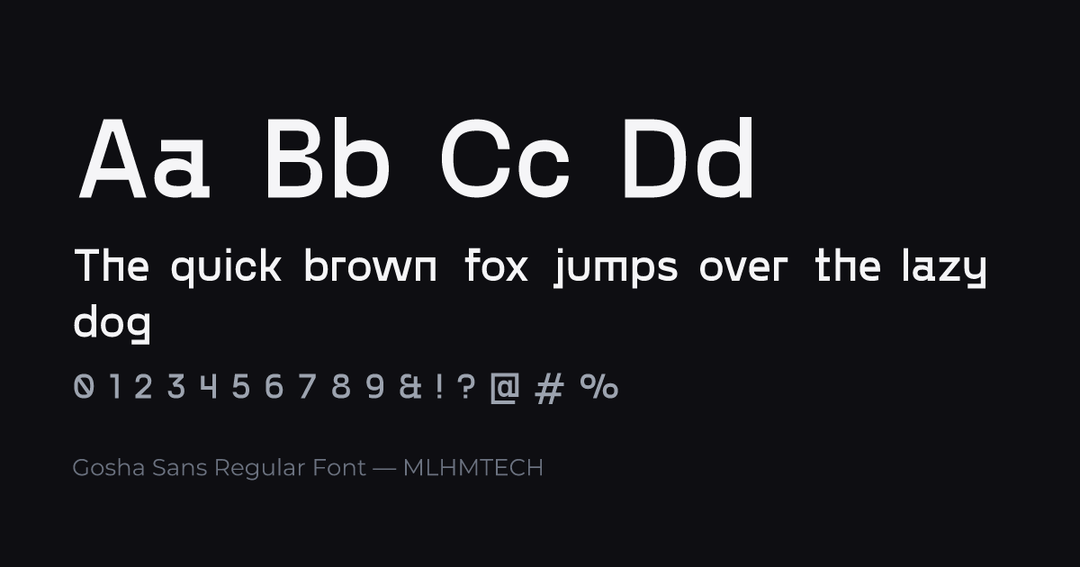
Gosha Sans Regular Font
Gosha Sans Regular is a modern geometric sans-serif font with clean lines and a contemporary feel. Ideal for branding, logos, and editorial design.
Gosha Sans Regular is a versatile geometric sans-serif typeface that brings a modern and clean aesthetic to any project. Its balanced proportions and subtle details make it suitable for both display and body text.
Use Gosha Sans for branding, logos, headlines, posters, and digital interfaces. Its legibility and style make it a great choice for professional and creative work.